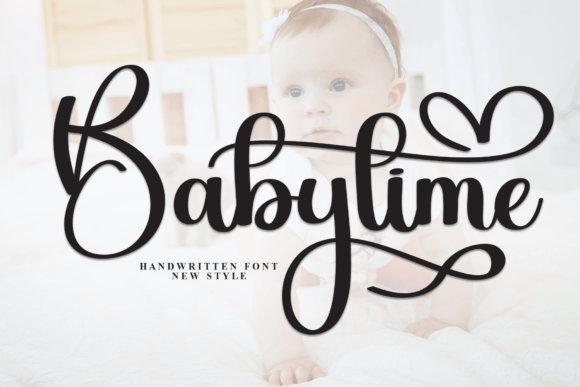
Have you ever been scrolling through your social media feed, and suddenly, you come across a beautiful, handwritten post that makes your heart skip a beat? That’s exactly what happened to me when I stumbled upon a gorgeous Instagram post designed with the Babytime Font. The elegant script font instantly caught my attention, and I couldn’t help but wonder what made it so special.
The Babytime Font is a carefully crafted script font that’s designed to add a touch of elegance to any creative project. Whether you’re a designer, a DIY enthusiast, or a social media influencer, this font is sure to turn your ideas into stunning pieces of art. With its versatility and beauty, it’s no wonder that the Babytime Font has become a favorite among designers who crave unique and eye-catching typography.
Babytime Font Key Features
- Font Family: Babytime Font is a unique, hand-drawn font designed specifically for children’s products and educational materials.
- Unique Characteristics: Features a playful, cursive style with rounded edges and whimsical flourishes, making it perfect for titles, headings, and decorative text.
Babytime Font Review
Overall, I found the Babytime Font to be a cute and playful addition to any design project. ✨ Its whimsical feel and rounded edges make it perfect for creating a nursery or kids’ theme. The font is highly customizable, with a wide range of options for adjusting size, color, and spacing.
One of the standout features of Babytime Font is its versatility. It can be used for a variety of applications, from digital displays to printed materials. The font is also highly readable, even at small sizes, making it a great choice for text-heavy designs.
- ✨ Cute and playful feel
- ✨ Highly customizable
- ✨ Versatile and readable
- ⚠️ Limited support for non-English languages
- ⚠️ Not ideal for formal or professional designs
Overall, I think the Babytime Font is a great choice for designers looking to add a playful touch to their projects. While it may not be suitable for all types of designs, its versatility and customizability make it a valuable addition to any design library.
The Babytime Font is perfect for creating adorable and playful designs for:
Remember to pair the Babytime Font with bright colors and whimsical illustrations to create a cohesive and eye-catching design.